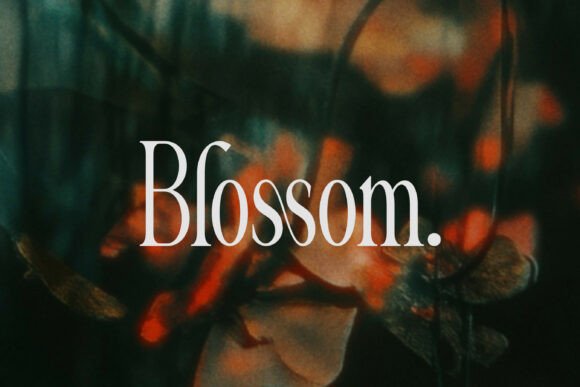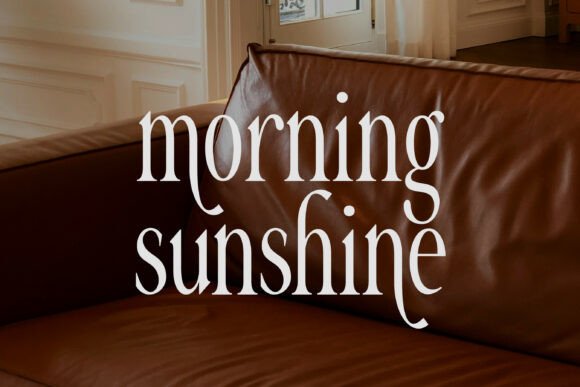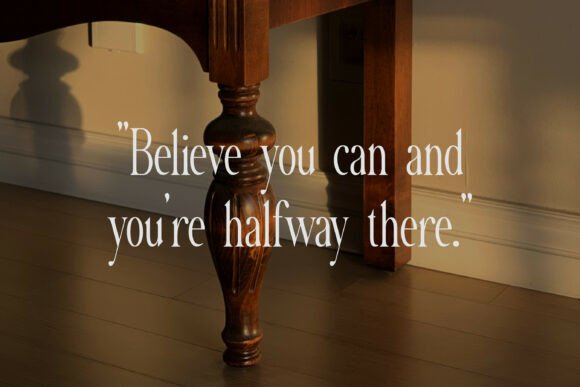
The Elusive Font: My Journey with Fragilous
I still remember the project like it was yesterday. I was working on a high-end editorial design project, and my client requested a font that exuded elegance, sophistication, and a touch of modernity. I scoured the internet, tried out countless fonts, but nothing seemed to fit the bill. That was until I stumbled upon Fragilous, a modern elegant ligature serif that has since become my go-to font for projects that demand a level of refinement.
First Impressions: A Love Affair with Fragilous
As soon as I laid eyes on Fragilous, I knew I had found something special. This refined ligature serif font blends timeless sophistication with contemporary flair, making it perfect for editorial design, branding, packaging, and quotes. Here’s what I love about Fragilous:
- ✨ Elegant and refined design that’s perfect for high-end projects
- ✅ Seamless ligatures that add a touch of sophistication to any layout
- 💯 Graceful curves and elongated forms that bring a sense of poise and presence
- 🎨 Highly versatile and adaptable to various design contexts
The Not-So-Perfect Font: A Few Quirks
While Fragilous has won my heart, it’s not without its limitations. Here are a few things to keep in mind:
- 🤔 Limited availability of certain characters and glyphs, which can be a challenge for non-typography experts
- ⚠️ May not be the best choice for body text or long-form reading due to its elegant but somewhat delicate design
The Story Behind Fragilous
While the origins of Fragilous are shrouded in mystery, it’s said that the font was designed by a renowned typographer who sought to create a modern, elegant serif font that would rival the classics. Inspired by the works of typography legends like Didot and Bodoni, Fragilous was crafted with precision and attention to detail, resulting in a font that’s both timeless and contemporary.
| Font Name | Fragilous Font |
| Author | Twistystd |
| What is Fragilous? | Fragilous is a modern elegant ligature serif font designed for elevated aesthetics. |
| What is Fragilous best used for? | Fragilous is perfect for editorial design, branding, packaging, and quotes, where a touch of sophistication and elegance is desired. |
| Is Fragilous suitable for body text? | While Fragilous is a beautiful font, it may not be the best choice for body text or long-form reading due to its elegant but somewhat delicate design. |